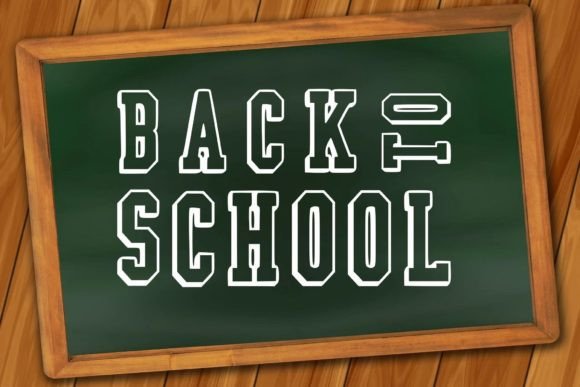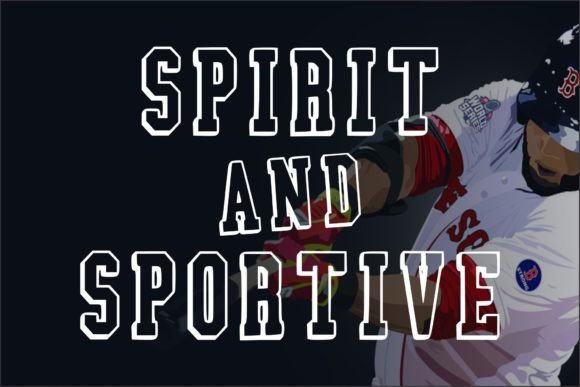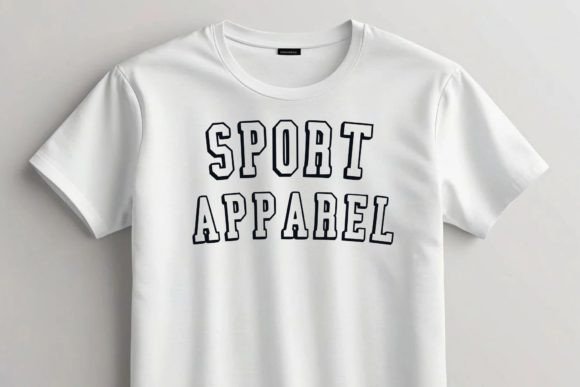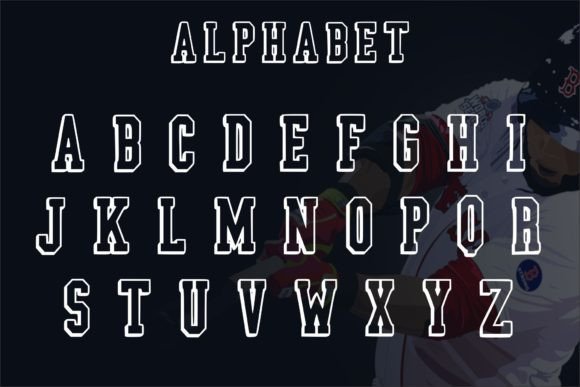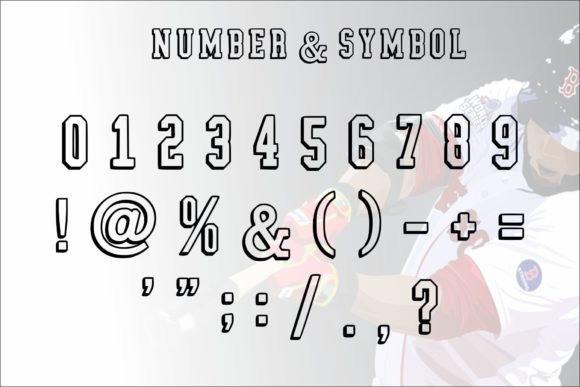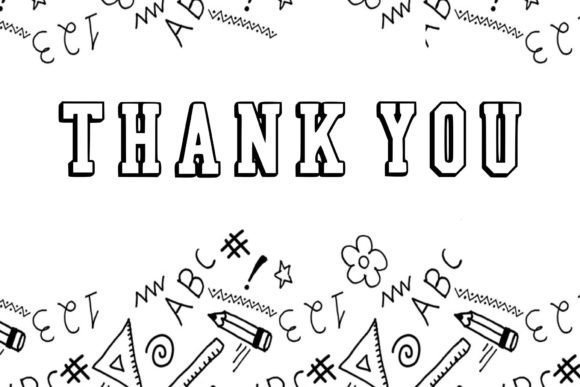
The Winning Pitch: A Deep Dive into Baseball Basic Font
I’ll never forget the design project that led me to discover Baseball Basic Font. I was working on a sports branding project for a local college, tasked with creating a bold and eye-catching logo that captured the energy of their athletic teams. As I scrolled through font libraries, I stumbled upon Baseball Basic – an outline font that screamed sports classic display font. It was love at first sight! 💘
Baseball Basic is more than just a font – it’s a statement piece. Inspired by college typography, this bold and dynamic font embodies the excitement and power of sports. With its strong and commanding look, thick lines, and sharp edges, it’s the perfect choice for designers, crafters, and creative hobbyists looking to add a touch of athleticism to their projects.
- ✨ Bold and dynamic design: Baseball Basic Font is perfect for making a statement. Its thick lines and sharp edges convey power and athleticism, making it ideal for sports branding, posters, and flyers.
- ✅ Highly versatile: This font works well in various design contexts, from digital to print, and can be used for titles, headings, and even body text.
- 🎉 Easy to read: Despite its bold design, Baseball Basic Font is surprisingly easy to read, even at smaller font sizes.
⚠️ While Baseball Basic Font is an excellent choice for sports-related projects, it may not be the best fit for more formal or elegant designs. Its bold and dynamic nature can be overwhelming in certain contexts.
🤔 Some users may find the font’s outline style a bit limited in terms of flexibility. However, this can also be seen as a strength, as it provides a consistent and recognizable look.
The Designer Inspiration Behind Baseball Basic Font
Baseball Basic Font was inspired by the classic typography of college sports teams. Its designer aimed to create a font that captured the energy and excitement of sports, while also paying homage to the rich history of athletic typography. The result is a bold and dynamic font that’s perfect for designers looking to add a touch of athleticism to their projects.
Q: What is Baseball Basic Font?
A: Baseball Basic Font is an outline font sports classic display font, inspired by college typography. It’s a bold and dynamic font that captures the energy and excitement of sports.
Q: What can I use Baseball Basic Font for?
A: Baseball Basic Font is perfect for sports branding, posters, flyers, logos, and any design project that requires a bold and athletic look.
Q: Is Baseball Basic Font easy to read?
A: Despite its bold design, Baseball Basic Font is surprisingly easy to read, even at smaller font sizes.